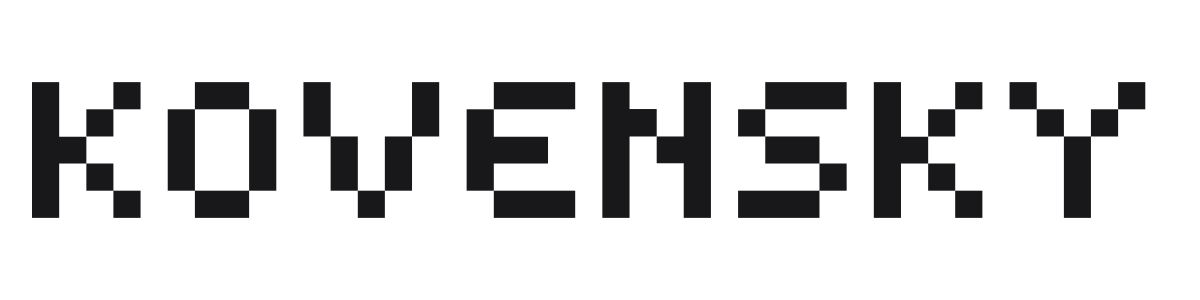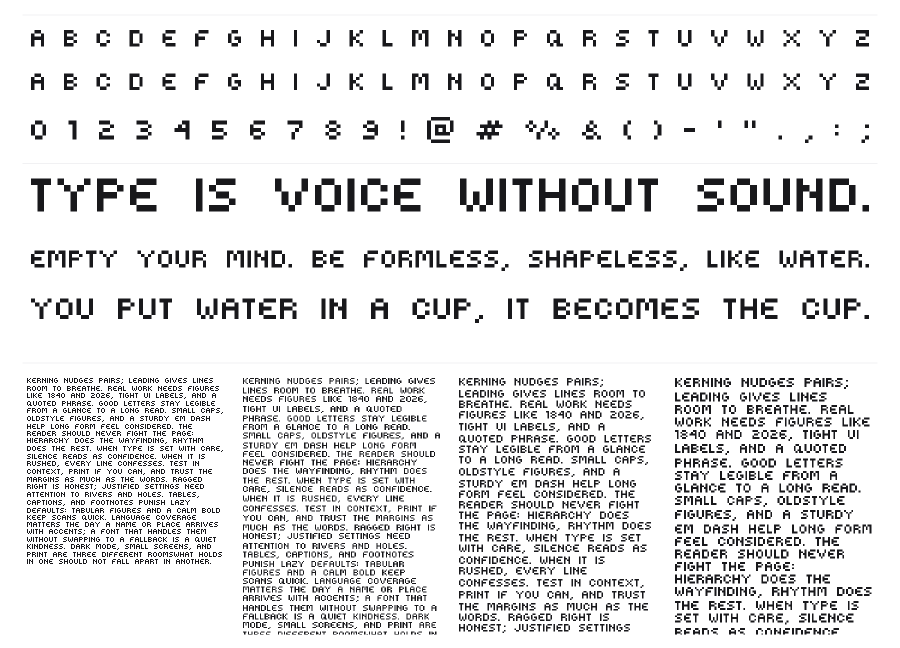
Kovensky
Kovsky is a bold bitmap font built entirely from square pixel blocks, straight from the visual language of early computer displays and arcade hardware. The characters are heavy, blocky, and unapologetically low-resolution, making the grid construction the entire aesthetic. It reads with instant retro-digital authority at large sizes.